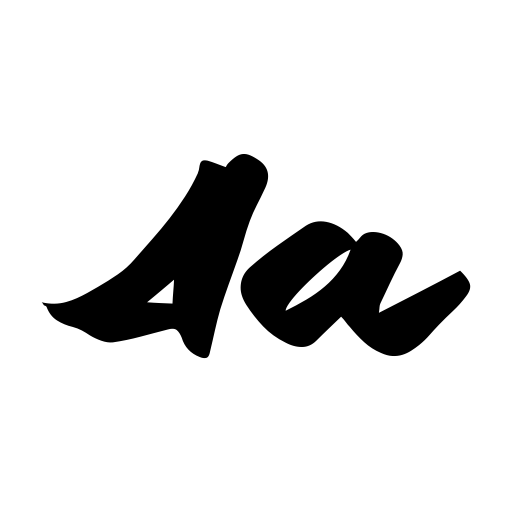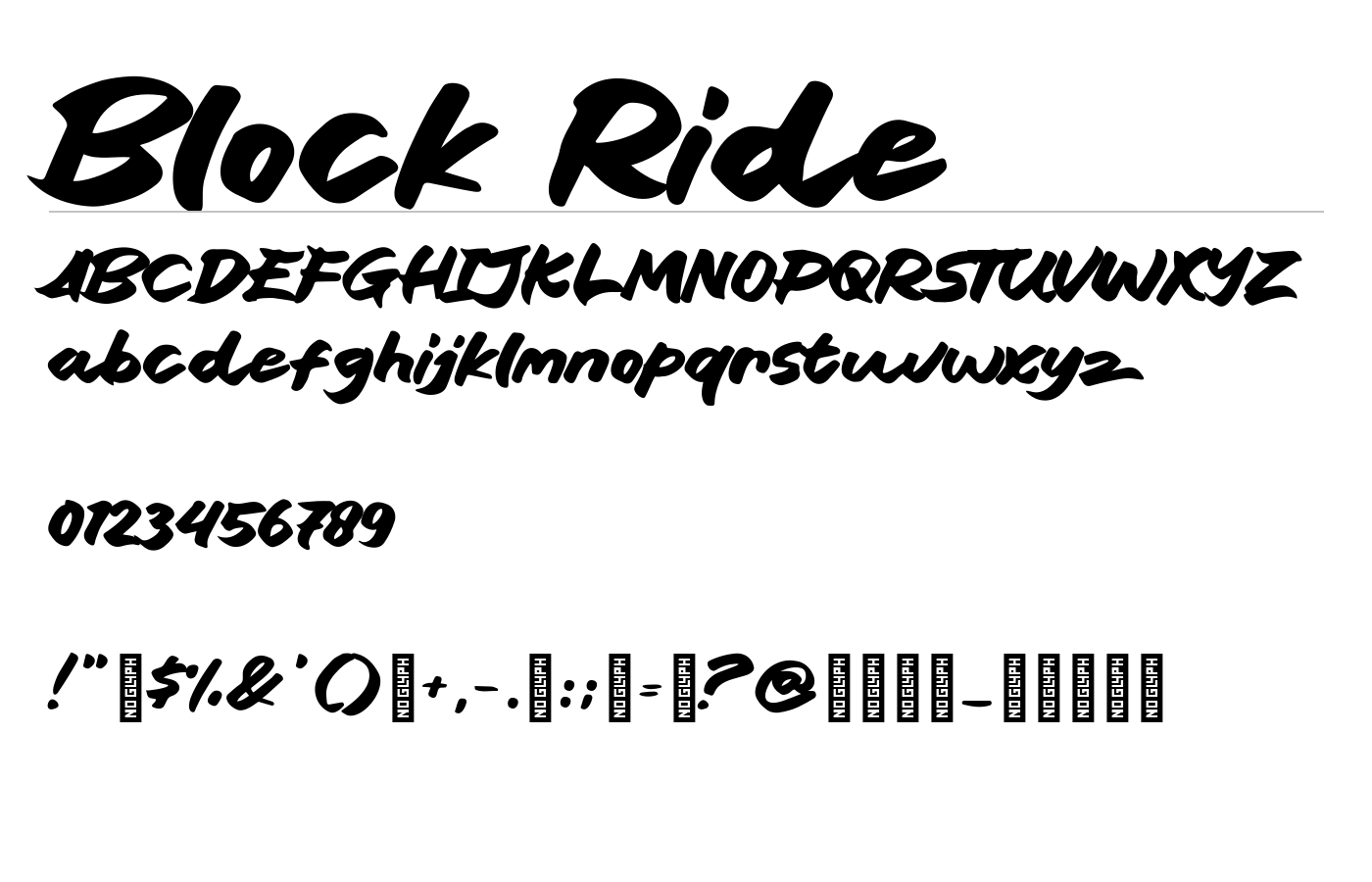
Block Ride is a bold, energetic script font with a casual, hand-painted feel. Its thick strokes and slightly condensed letterforms create a strong presence, making it perfect for attention-grabbing headlines, logos, and branding that want to convey a sense of fun and movement. This font works well in playful, urban, or youthful designs where a dynamic and approachable vibe is desired.
Block Ride Font
About Block Ride Font
| Font family | Block Ride Font |